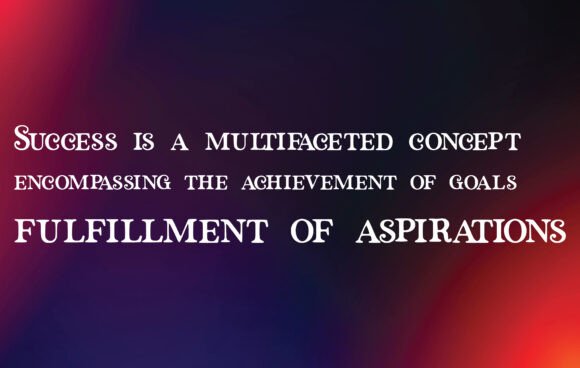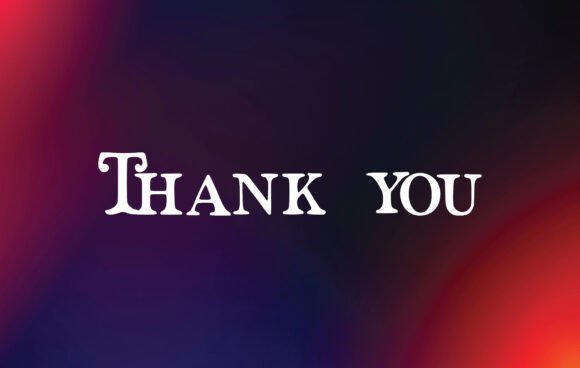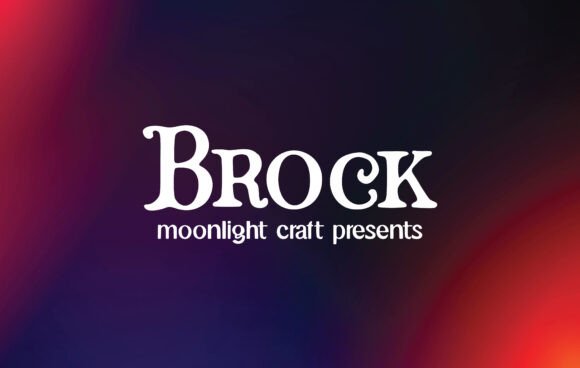
Brock Font: Elevate Your Designs with a Timeless Serif Classic
In the world of typography, fonts play a pivotal role in conveying messages, evoking emotions, and defining brand identities. Among the myriad of fonts available to designers and crafters, the Brock font stands out as a bold and stylish serif font that brings a perfect blend of vintage flair and modern charisma to the table. With its strong curves, classic serifs, and a touch of playful quirk in its letterforms, Brock is not just a font; it’s an experience that adds character and sophistication to any design.
The Essence of Brock Font
Brock is more than just a typeface; it’s a statement piece. Its design is rooted in the principles of classic serif fonts but infused with a modern twist that makes it highly versatile and appealing. The strong curves of Brock’s letters provide a sense of elegance and fluidity, making it perfect for designs that require a touch of sophistication. The classic serifs add a traditional feel, grounding the font in the rich history of typography, while the playful quirks introduce a contemporary edge that sets it apart from more conventional serif fonts.
One of the key advantages of the Brock font is its versatility. Whether you’re working on a logo, poster, branding materials, packaging, or editorial titles, Brock proves to be an excellent choice. Its bold and stylish appearance makes it highly legible, even at smaller sizes, ensuring that your message is conveyed effectively across various platforms and mediums.
Logos and Branding
In the realm of logos and branding, establishing a strong visual identity is crucial. Brock’s unique blend of vintage and modern elements makes it an ideal candidate for brands looking to stand out. Its boldness and character can help a brand appear more confident and memorable, essential qualities in today’s competitive market.
Posters and Editorial Titles
For posters and editorial titles, the visual impact is paramount. Brock’s strong curves and classic serifs make it a compelling choice for headlines and titles, capable of grabbing attention and adding a level of sophistication to any publication or promotional material.
Packaging
In packaging design, typography plays a critical role in communicating brand values and product information. Brock’s stylish and bold appearance can elevate product packaging, making it more appealing to consumers and helping products stand out on store shelves.
Why Choose Brock Font?
Choosing Brock font for your design projects comes with several benefits:
- Timeless Appeal: Brock’s classic roots ensure it remains relevant over time, avoiding the fleeting nature of trend-based designs.
- Versatility: Its adaptability across various design applications makes it a valuable addition to any designer’s toolkit.
- Character and Sophistication: Brock adds a level of elegance and personality to designs, helping to create a lasting impression.
Brock font is a powerful tool for designers and crafters looking to infuse their projects with a sense of style, sophistication, and timelessness. Its unique blend of vintage flair and modern charisma, coupled with its versatility across different design applications, makes it an excellent choice for a wide range of projects. Whether you’re aiming to create a bold statement with a logo, elevate a poster, or add character to packaging, Brock font is sure to deliver. Embrace the elegance and personality of Brock in your next design endeavor and experience the difference a well-crafted font can make.
In the ever-evolving landscape of design, having a font like Brock at your disposal can be a game-changer. It’s not just about making a statement; it’s about creating a connection with your audience through the very essence of your design. With Brock, you’re not just choosing a font; you’re choosing a way to communicate your vision with clarity, style, and impact.